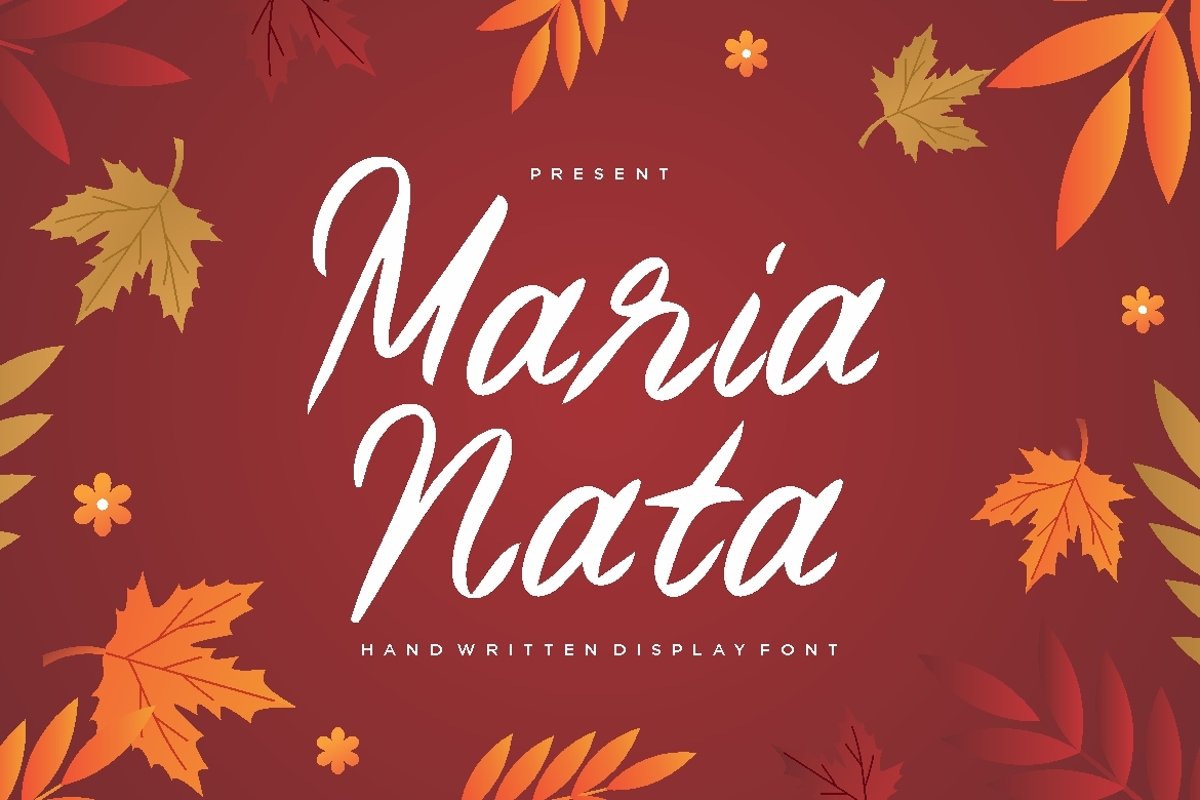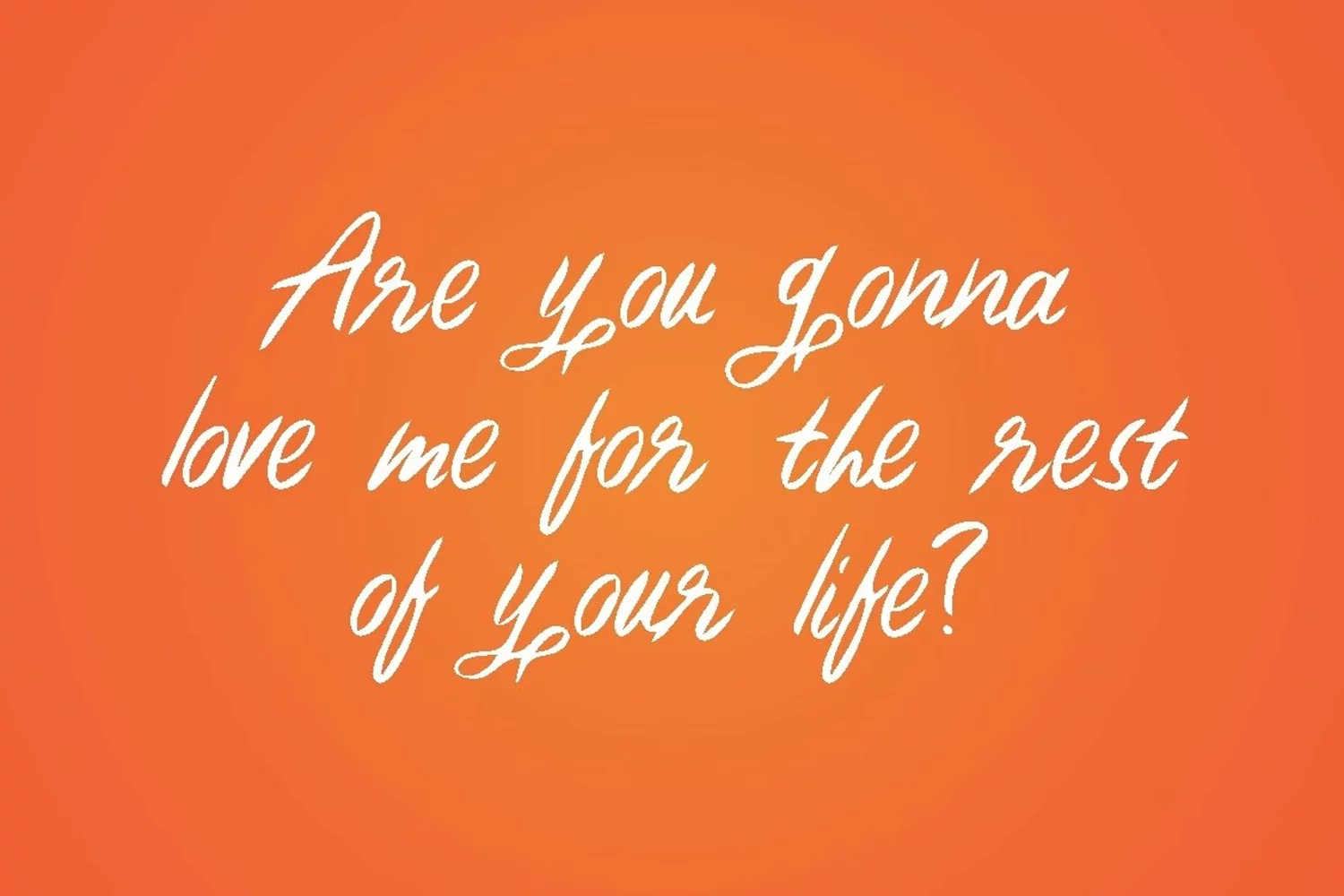
Maria Nata Script Font for some designs such as the logotype, brand, packaging, quotes, music poster, t-shirt, cover book and more custom design. The features uppercase, lowercase, numeral, punctuation & symbol, multilingual support.